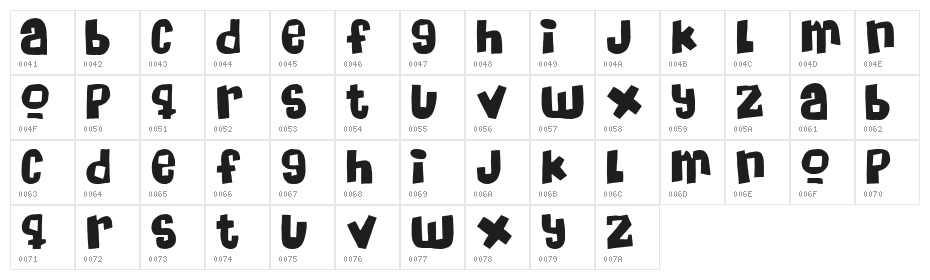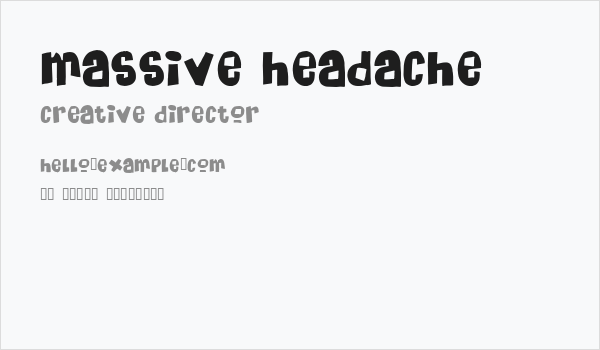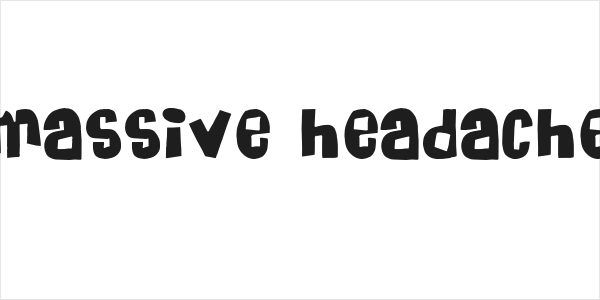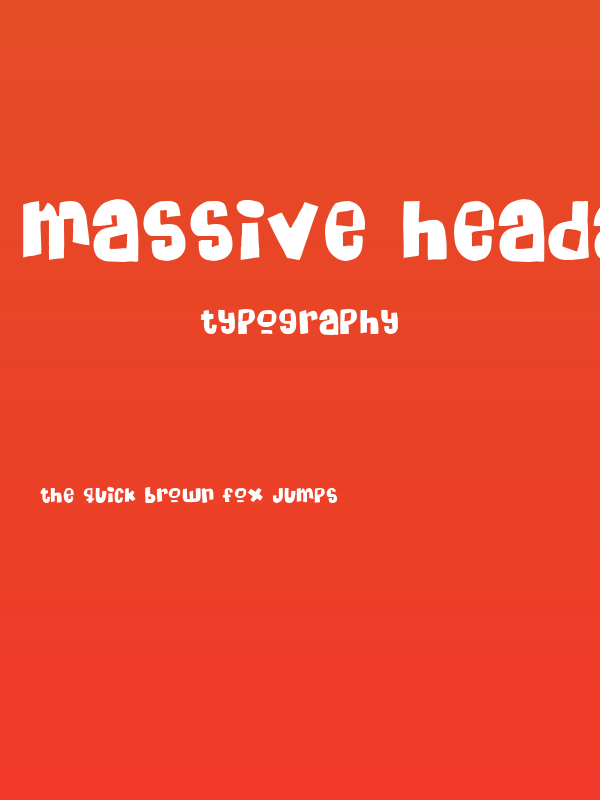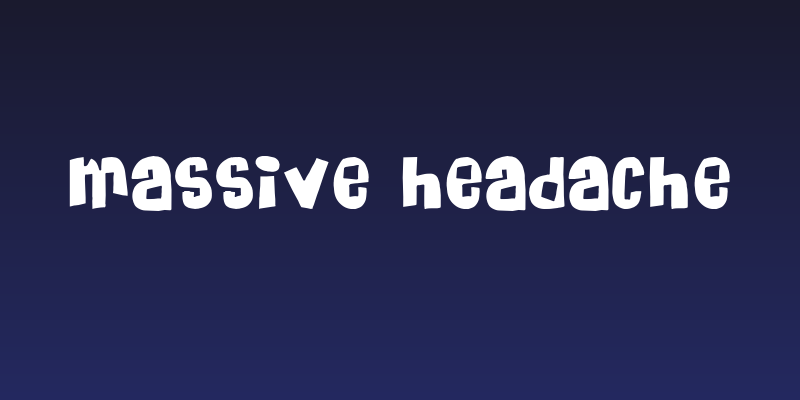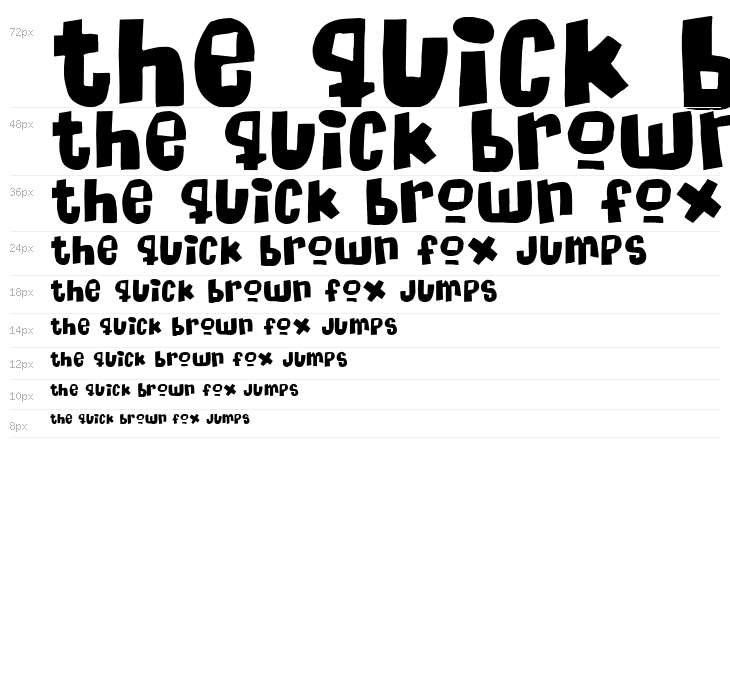
Massive Headache Font
Massive Headache Description
This font features a bold and playful design with a quirky, uneven structure that gives it a lively and dynamic appearance. Each character is uniquely styled with varying widths and exaggerated curves, creating a sense of movement and energy. The uppercase and lowercase letters maintain a consistent whimsical style, while the numbers and special characters follow suit with their own distinctive flair. The overall look is bold and eye-catching, making it ideal for projects that require a fun and informal touch.
Overall StylePlayful, Quirky
Use CaseHeadlines, Posters, Branding
Proposed ProjectsIdeal for children's books, comic strips, playful branding, and event posters.